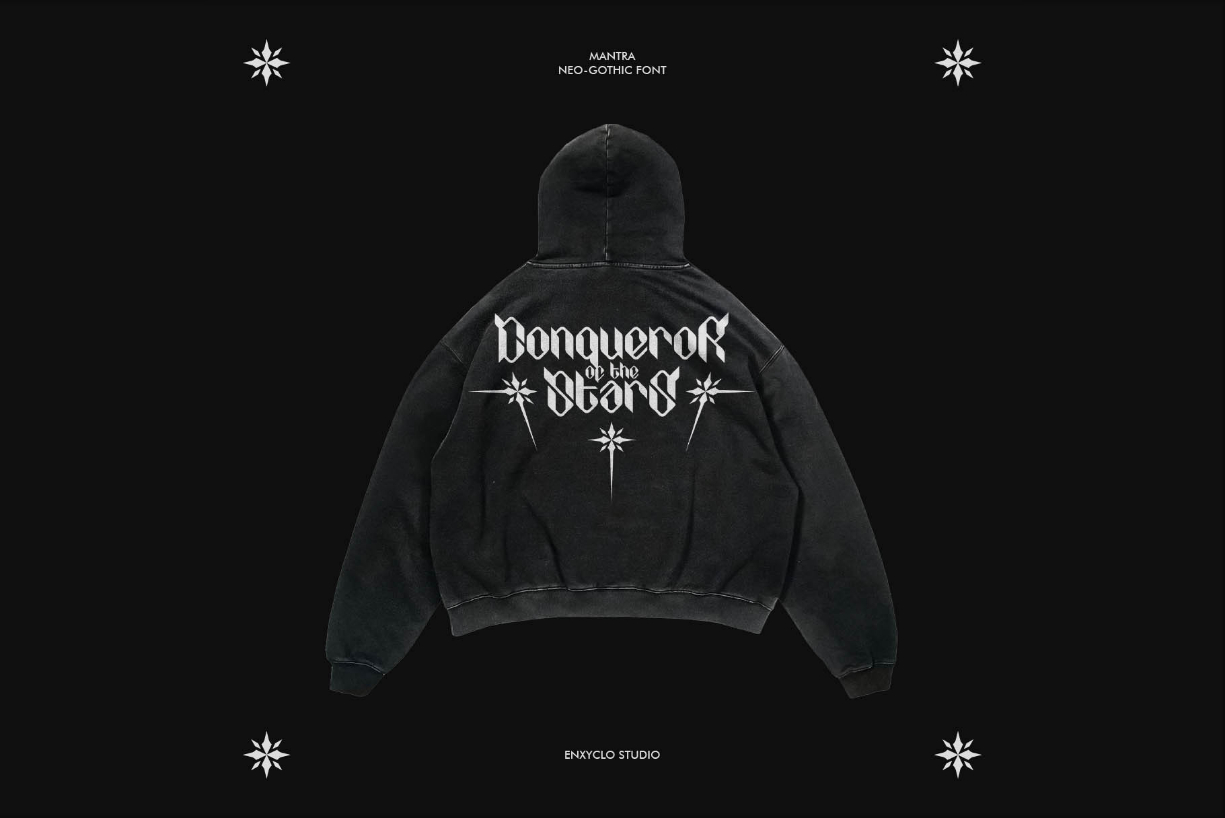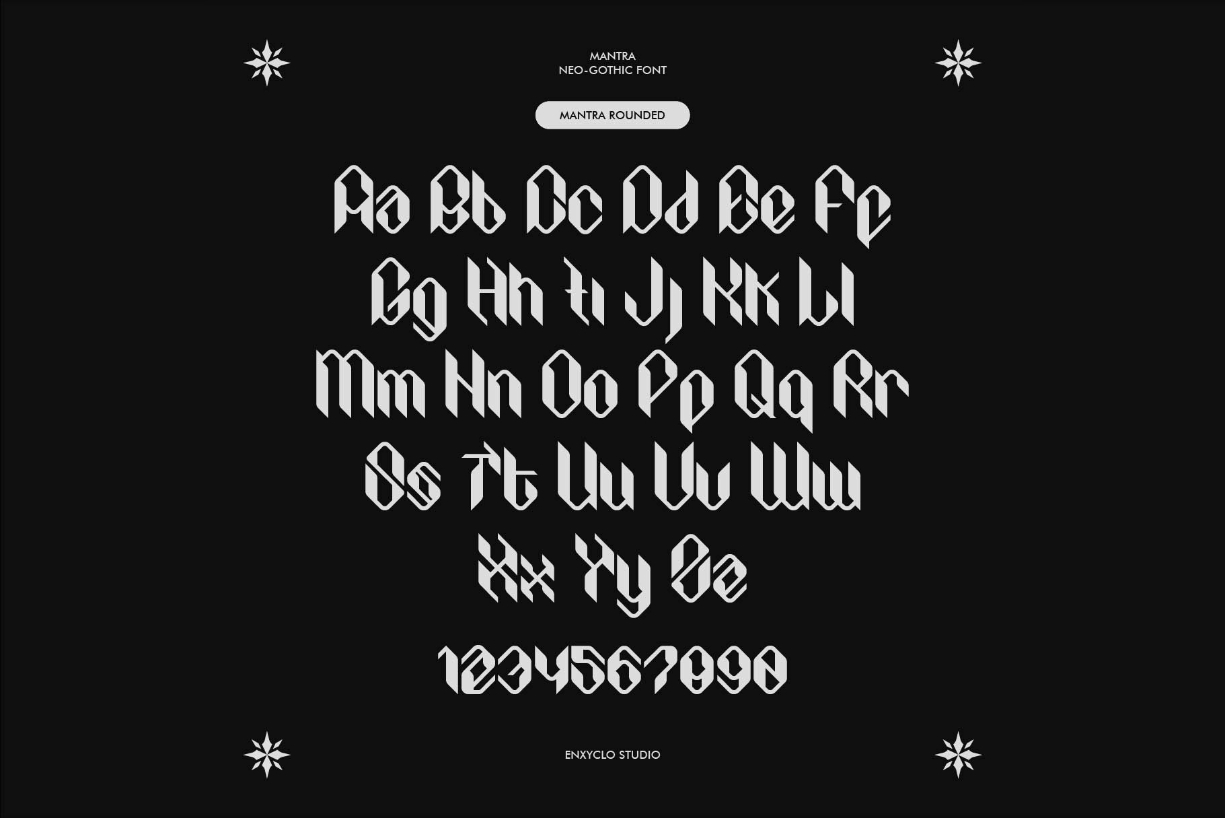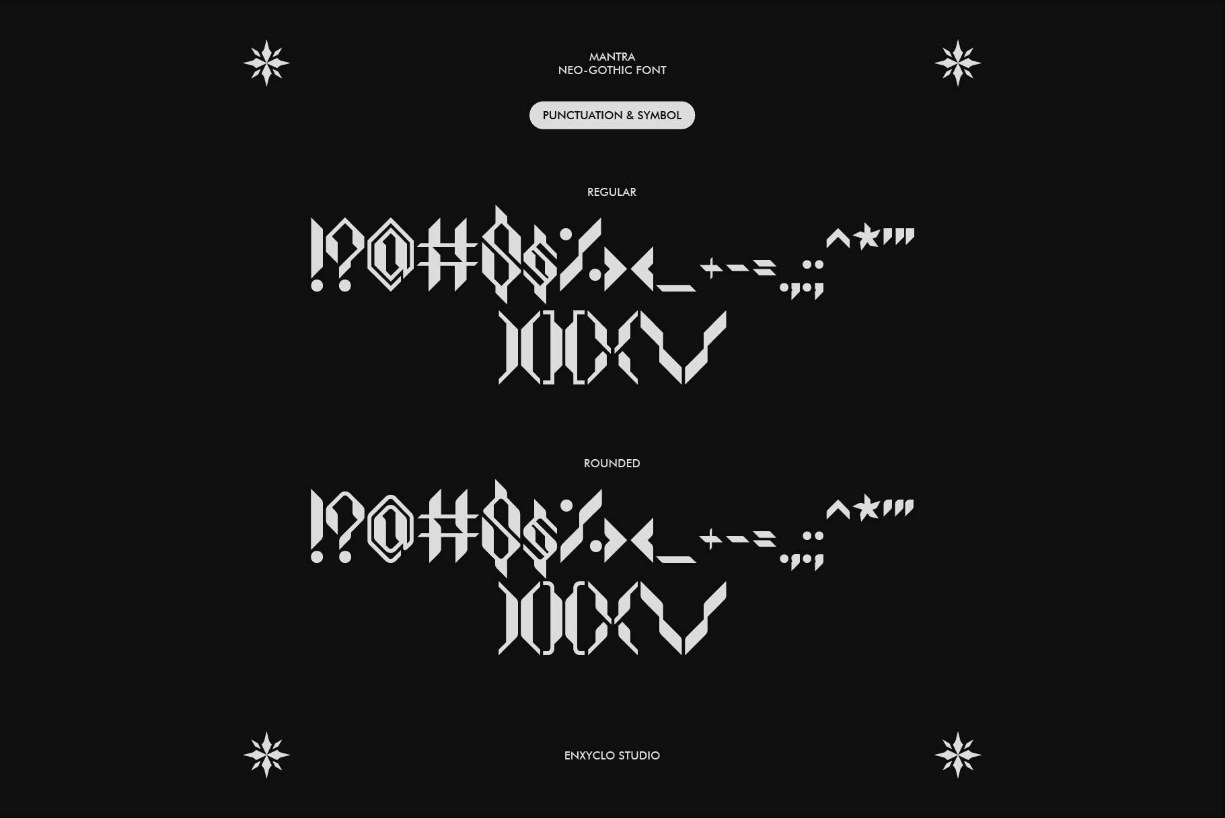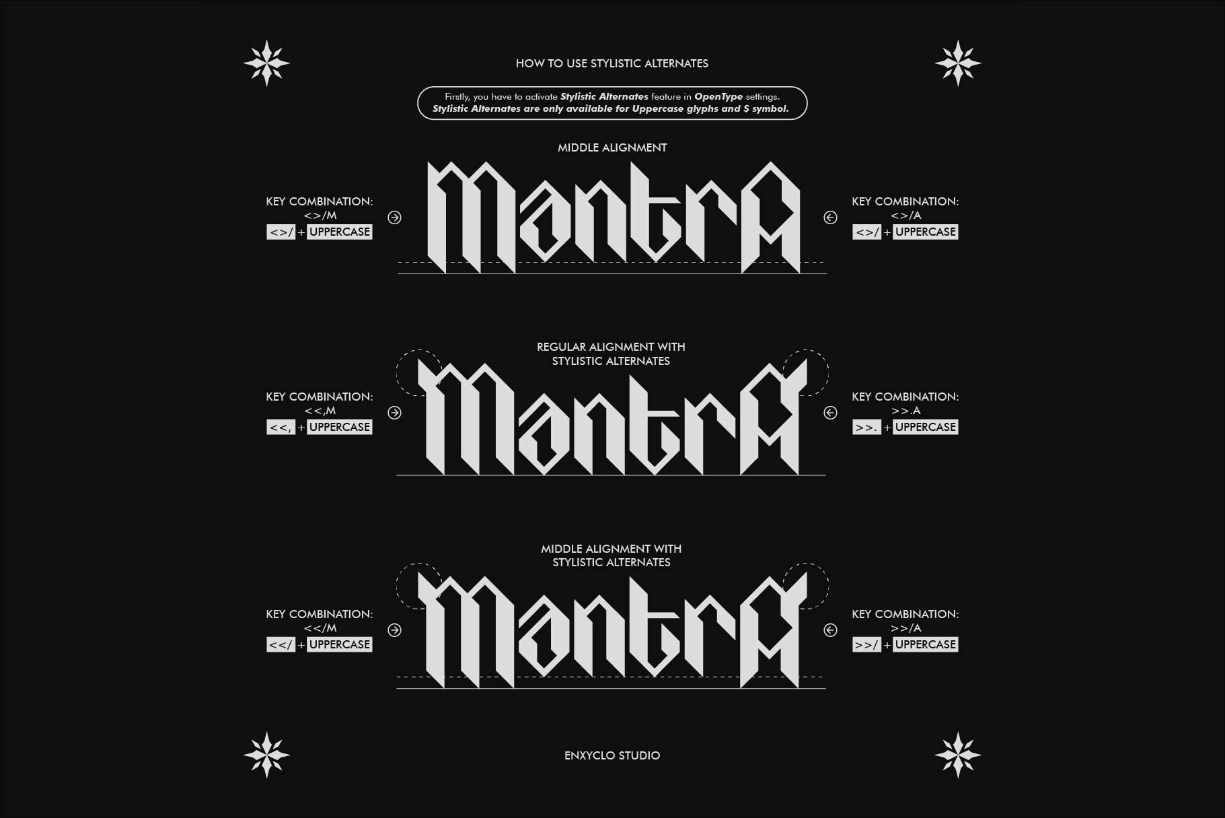
About Mantra Font
Mantra is a neo-gothic, modern, and futuristic blackletter font. It is perfect for creative branding, events, headlines, billboards, magazines, websites, titles, posters, T-shirt designs, logos, and many more. Masterfully designed to become a true favorite, this font has the potential to bring each of your creative ideas to the highest level!